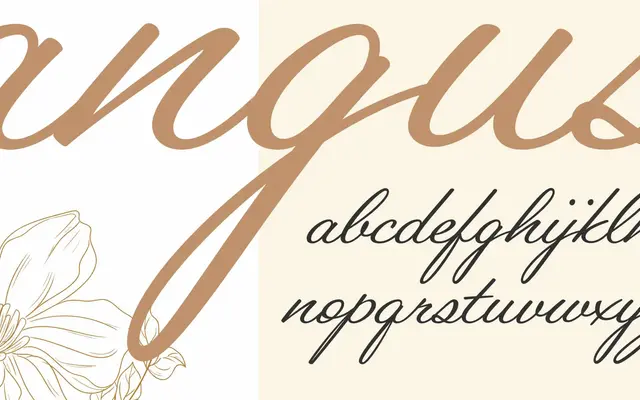
Angus Hand
Arcane Type Foundry · Alanna Munro · 2025
A handwriting typeface traced from 1955 love letters written by the designer's grandfather, offered in casual and calligraphic styles with a variable axis between them.
Based on traced samples of handwritten letters from Victoria, Canada in 1955, the family captures the natural irregularities and warmth of genuine personal correspondence. Two static styles are offered, Casual and Calligraphy, with a variable font allowing stepless adjustment between them. OpenType features including contextual alternates and ligatures help maintain the organic feel across longer stretches of text.
A digitised handwriting typeface based directly on traced samples of personal correspondence, offering both a casual and a more refined calligraphic style. Fits squarely within the script/handwriting subcategory rather than formal calligraphy or brush script.